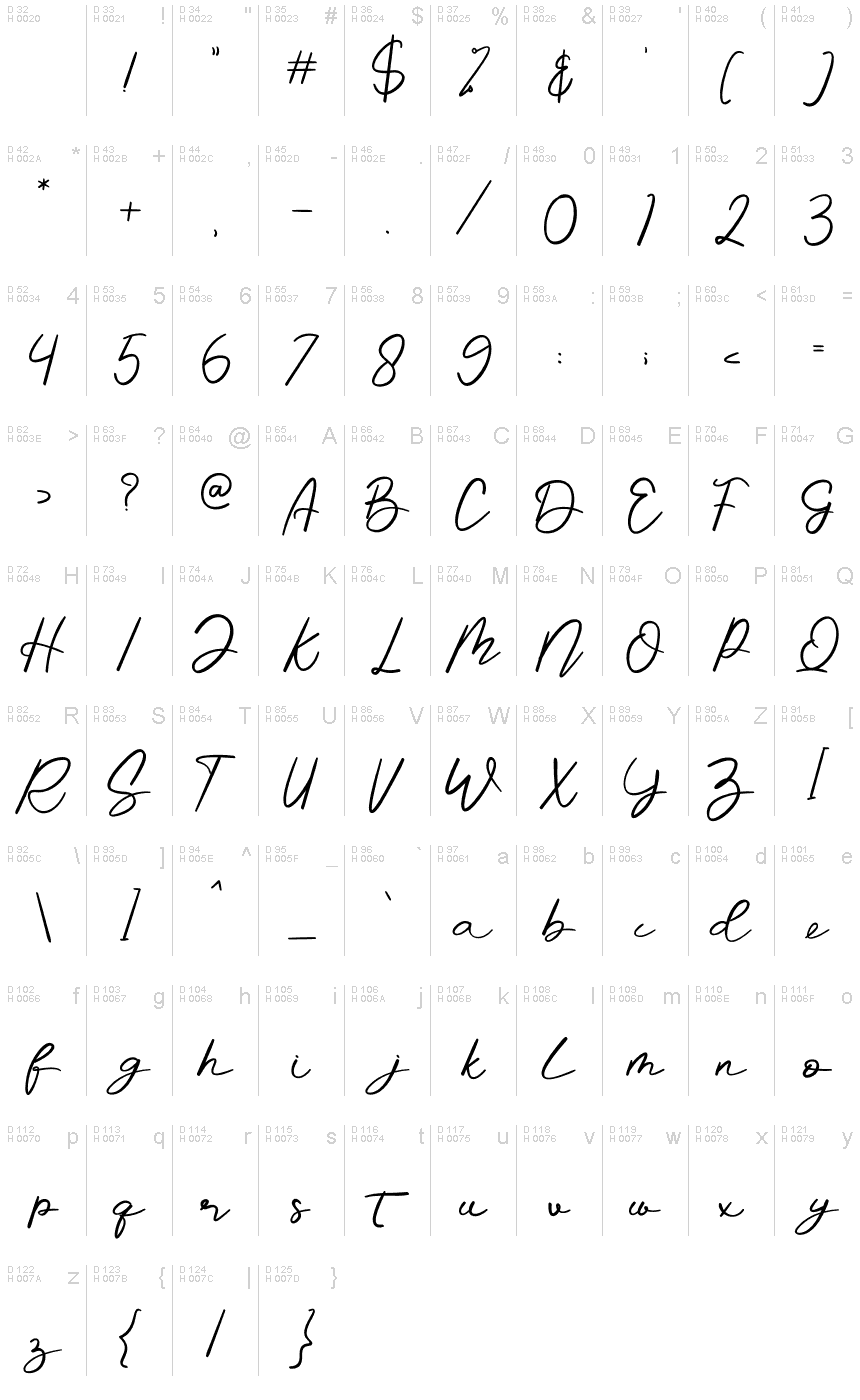
Handmade Summer
Handmade Summer, designed by Etik Fatimah, is a delightful handwritten font that adds a touch of whimsy to any project.
With its semi-light weight and semi-expanded width, this font is perfect for creating charming invitations, greeting cards, or personalized stationery. Its playful style also makes it suitable for children's books and posters, adding a sense of joy and character to the design.
Handmade Summer brings a unique handmade feel that evokes the warmth of summer days and will surely capture the attention of your audience.